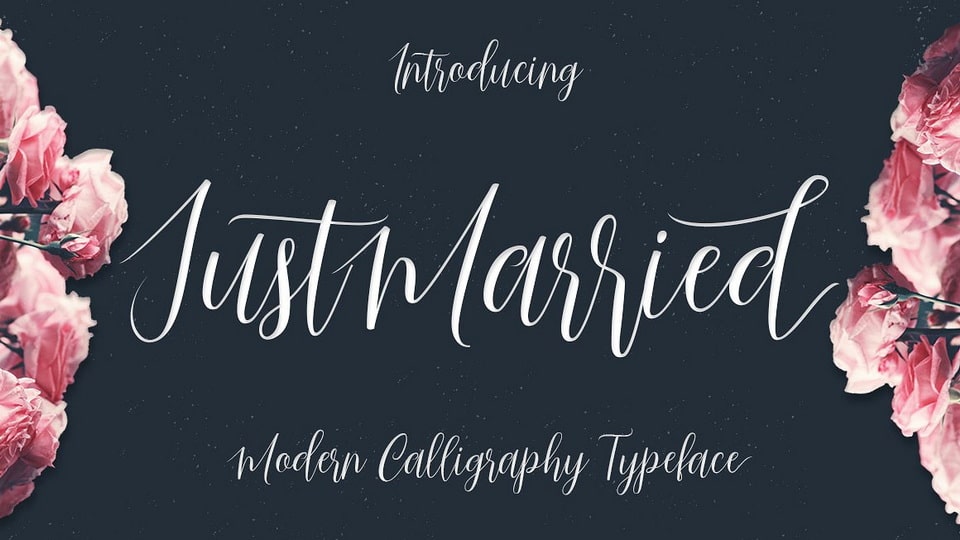
Jan 30, 2025Script & HandwrittenJust Married Font Just Married Script is a feminine font and handwritten with fun characters. Good for greeting cards, wedding invitations, quotes, posters and many other projects. ♥ Font DetailsDesigned by: GatypeWebsiteLicense: Free for personal use Download Just Married FontFile size: 104.63 KBCreated: February 16, 2025Updated: February 16, 2025 Download Explore similar fonts Santa Catalina Font Sherlyn Font Aaksaraan Rania Font Arthur Meridian Font Rhetorical Flourish Font Gelato Vanilla Font # Bouncy# Calligraphy# Hand-drawn# Handwriting# Pretty More fonts by GatypeFrileder FontMorelinia FontBekinder FontGretania FontMonlight FontBetana Script FontMobilesta FontAvoliun Font